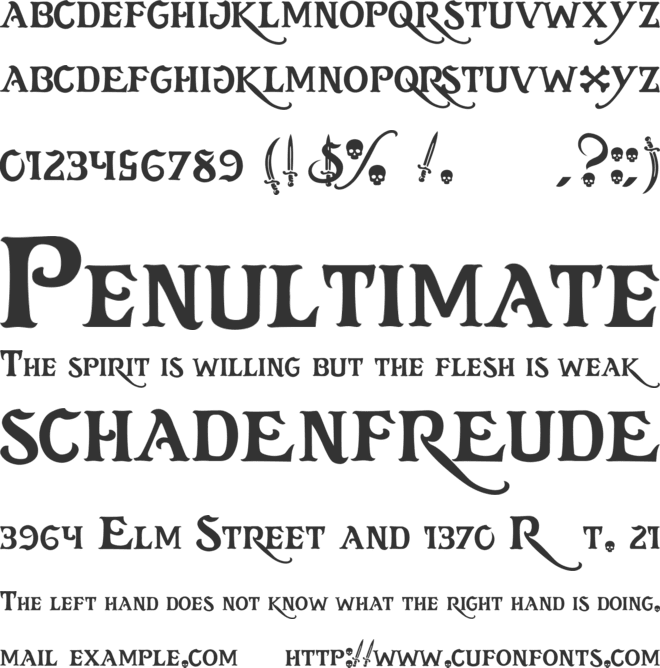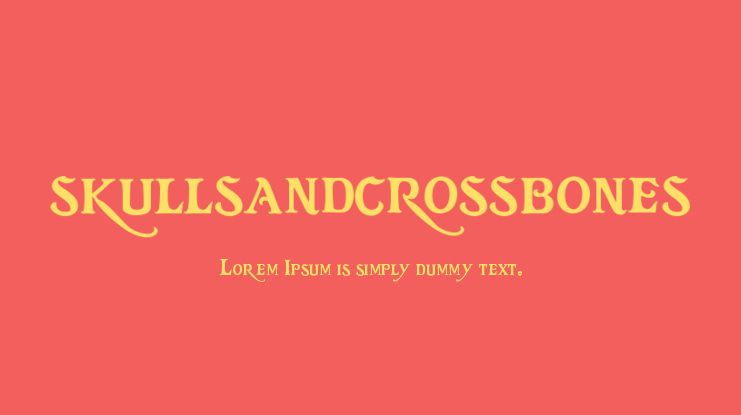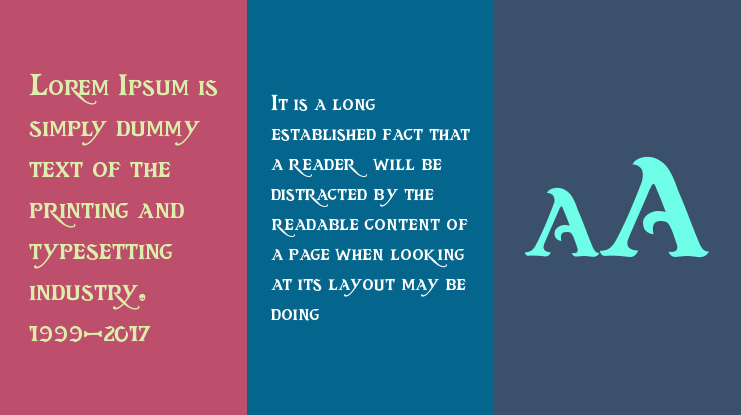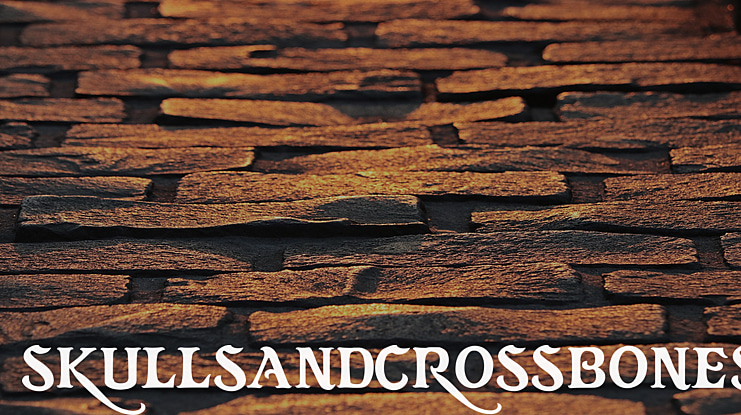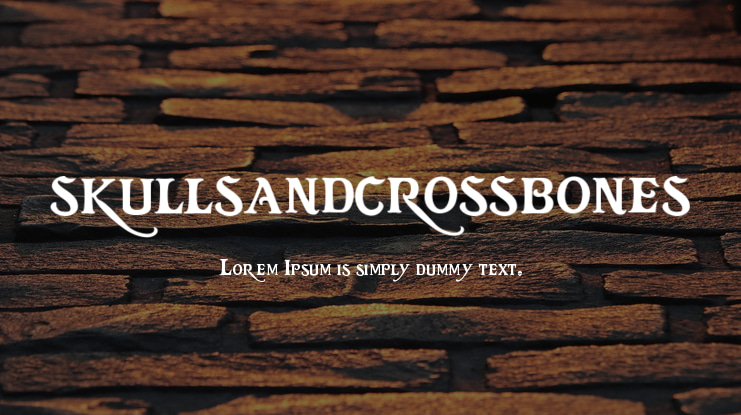
skullsandcrossbones Font
I came upon a poster of Tinkerbell “Pirate Fairy” movie, and couldn’t help but notice how beautiful the title was. So, initial inspiration was Tinkerbell, although the font turned out a lot “darker”.
Includes “surprise” characters and Greek letters.